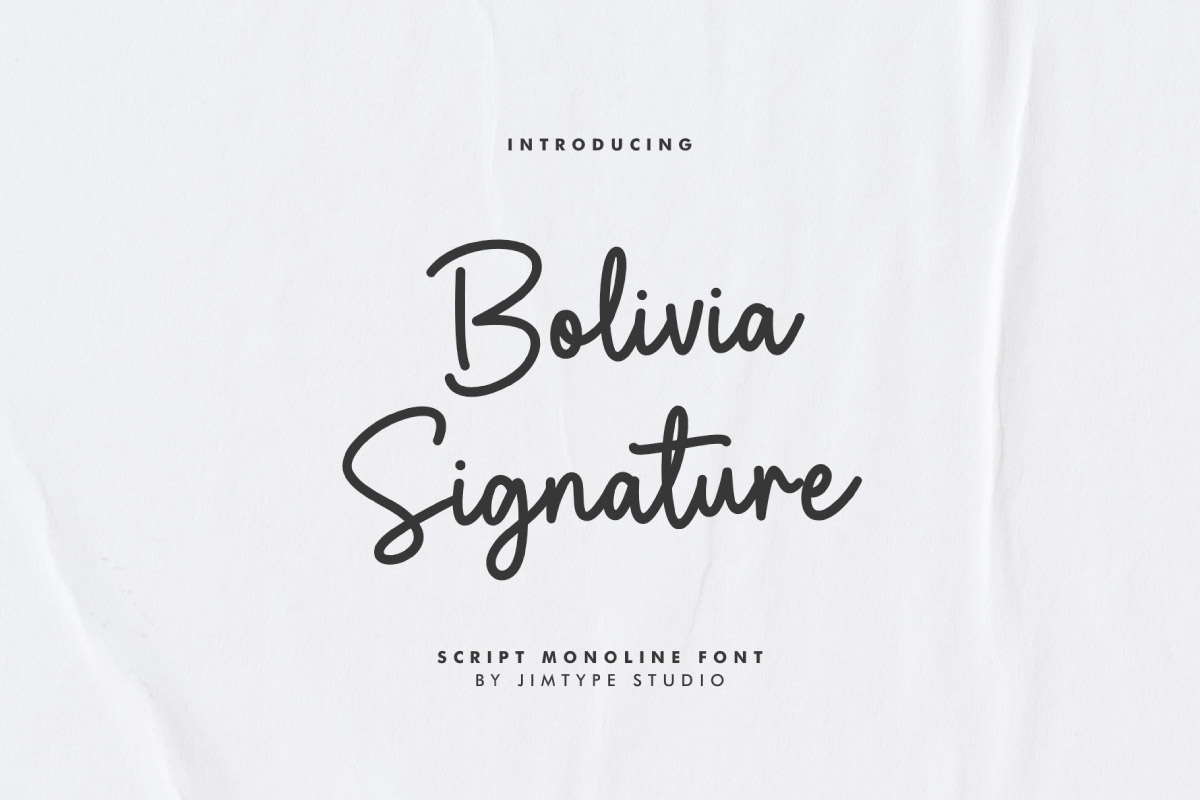
Bolivia Signature Font
Say hello to Bolivia Signature Font, a smooth and stylish script monoline font that brings a personal, handwritten charm to your designs.
This font carries a modern yet effortless elegance, perfect for typography, fashion, apparel, greeting cards, posters, branding, quotes, logos, invitations, or anything that needs a classic, unique touch of style.